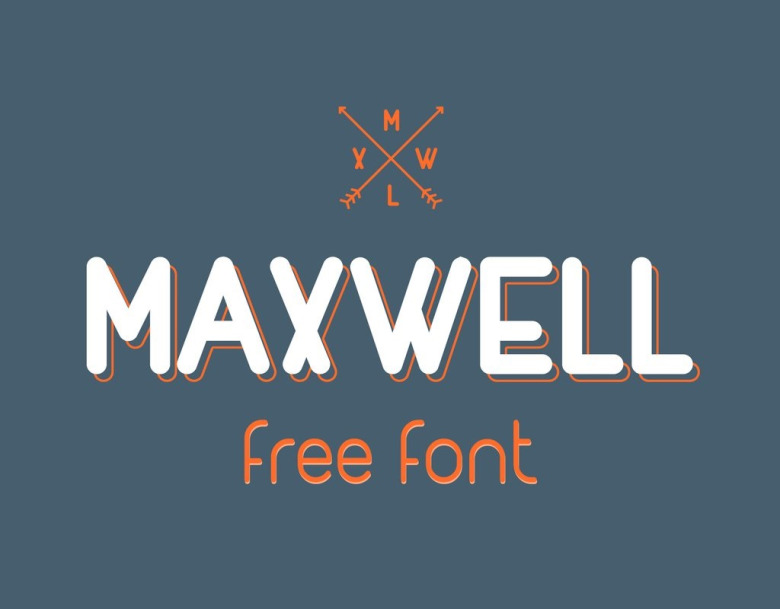
MAXWELL Font Family
MAXWELL Font
Maxwell is a clean condensed san serif typeface. MAXWELL Font Family designed and share by Ryan Pyae. MAXWELL is applicable for any type of graphic design. (web, print, motion graphics etc and perfect for headlines and logotypes/ wordmarks)…